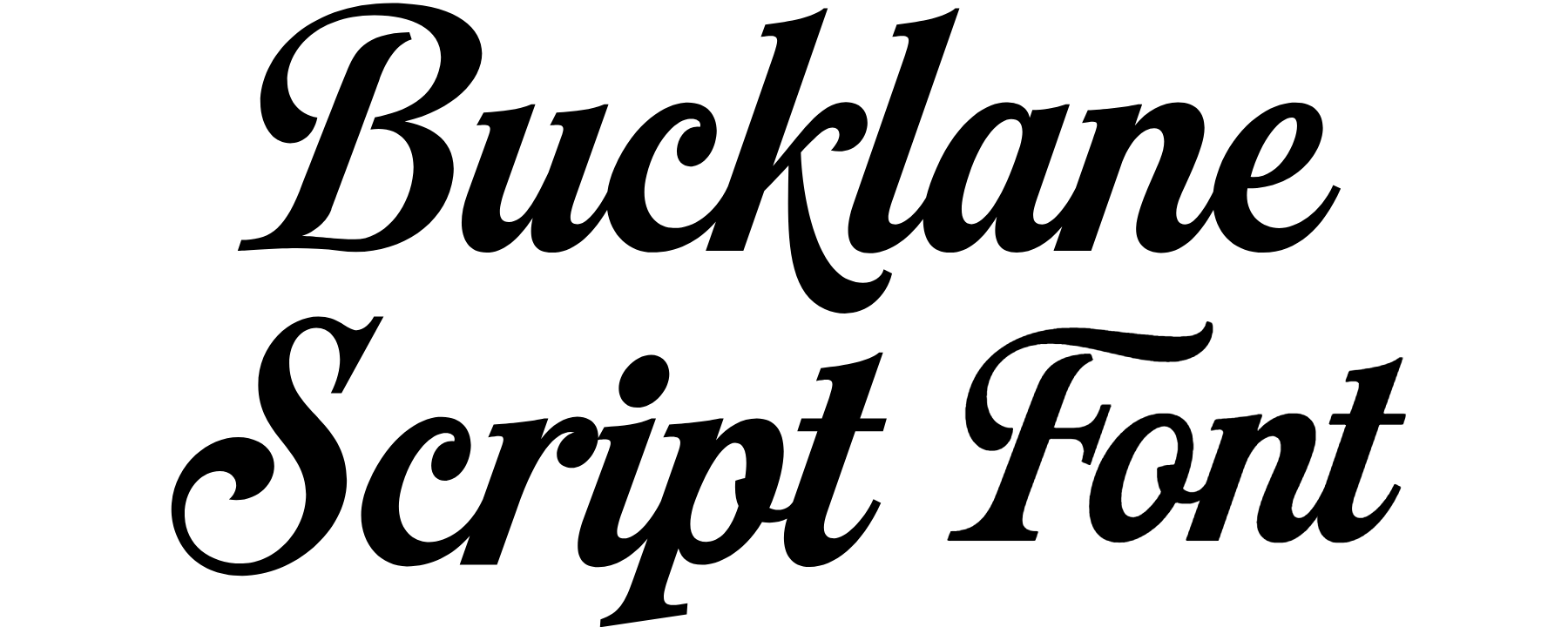
Bucklane Script
Bucklane Script is a script font designed by Mans Greback and published by Mans Greback AB (2025). Its flowing, pen-made letters give names and short phrases a personal, polished look. You can download it for free and test it with your own words in the preview above.
- OpenType features: Ligatures (including optional ones), 4 stylistic sets, old-style numbers and fractions
With complete upper and lowercase letters and all ten digits, Bucklane Script is ready for real wording, not just a single headline. Common punctuation such as &, !, ? and @ is included as well. It also has the accented letters you need for Spanish, French, German, Portuguese and Italian.
Designers usually reach for fonts like Bucklane Script when they're making wedding invitations, logos and signature-style headings. Script fonts read best in short bursts, so keep it to names, titles and one-line quotes. Skip all caps: script capitals are drawn to start a word, not to fill one.
Yes. Bucklane Script includes the accented letters needed for Spanish, French, German, Portuguese and Italian, so it works for more than just English.